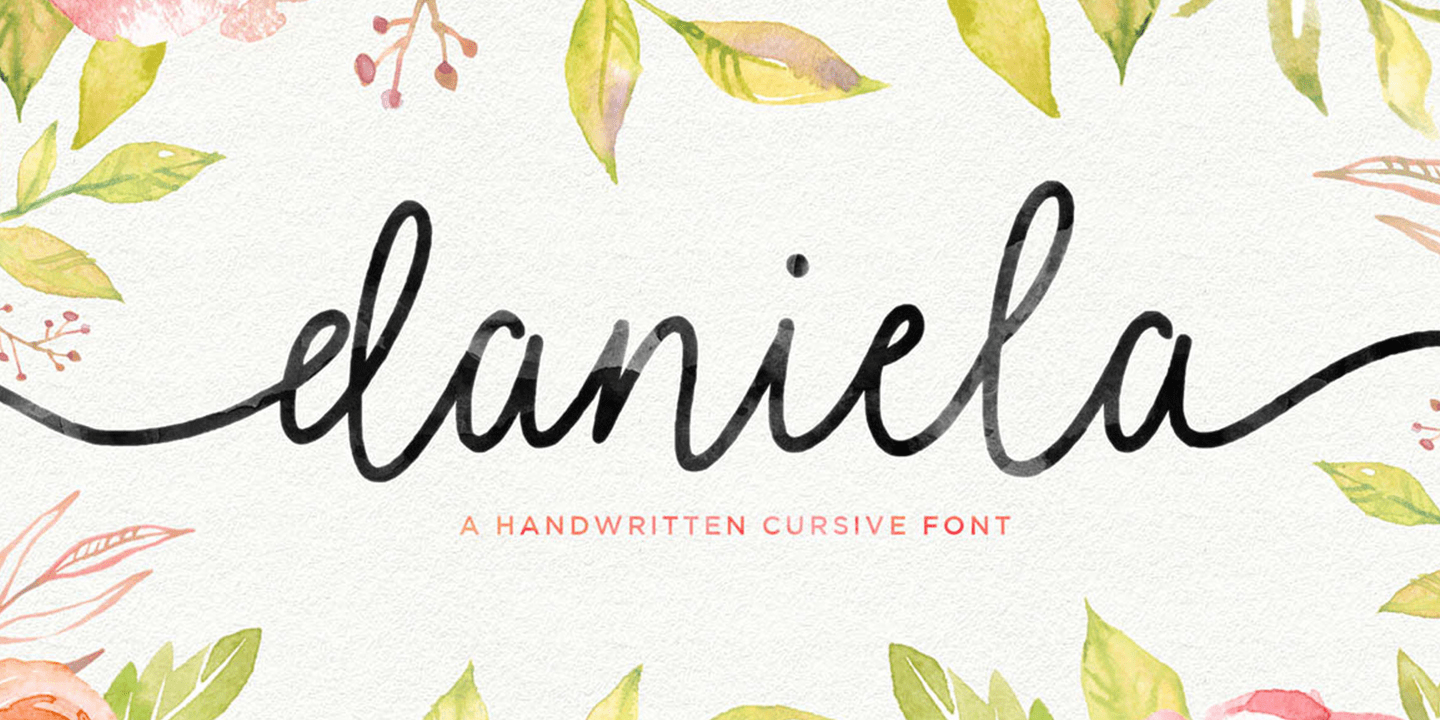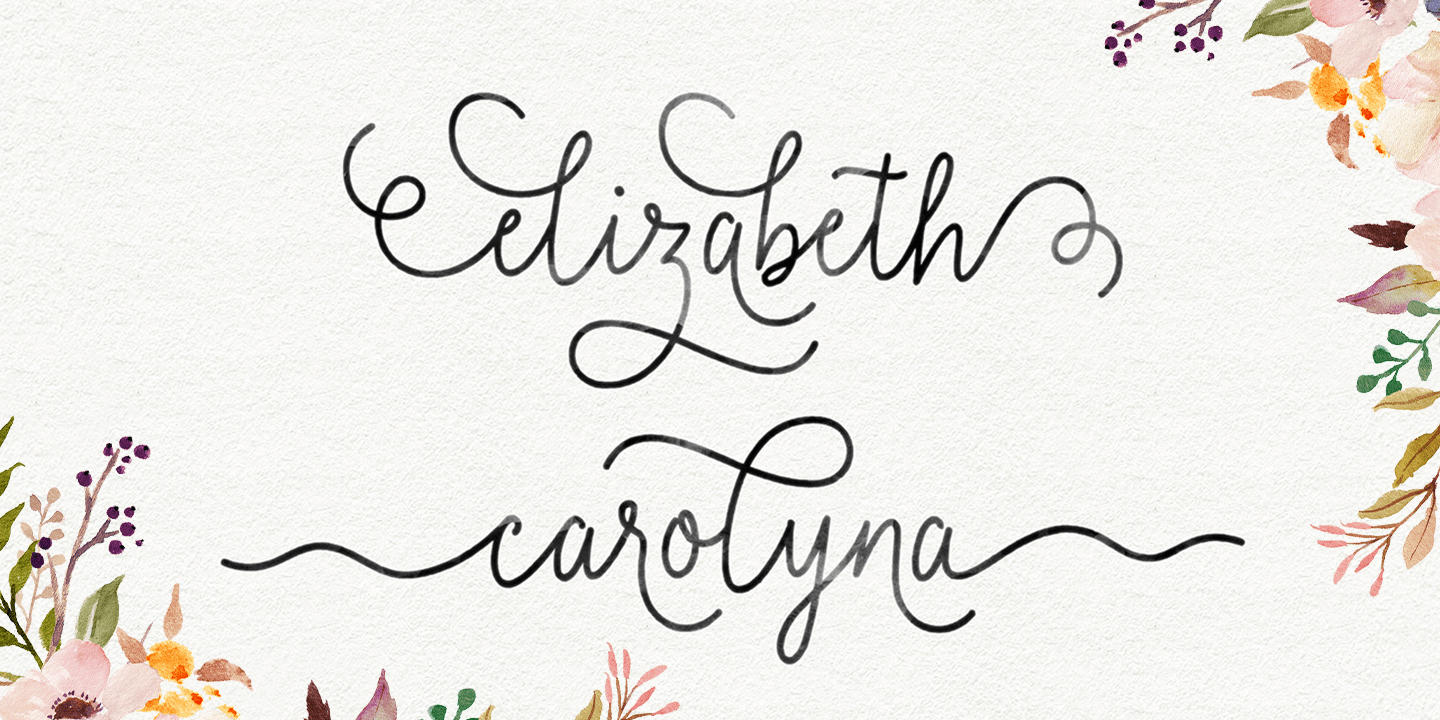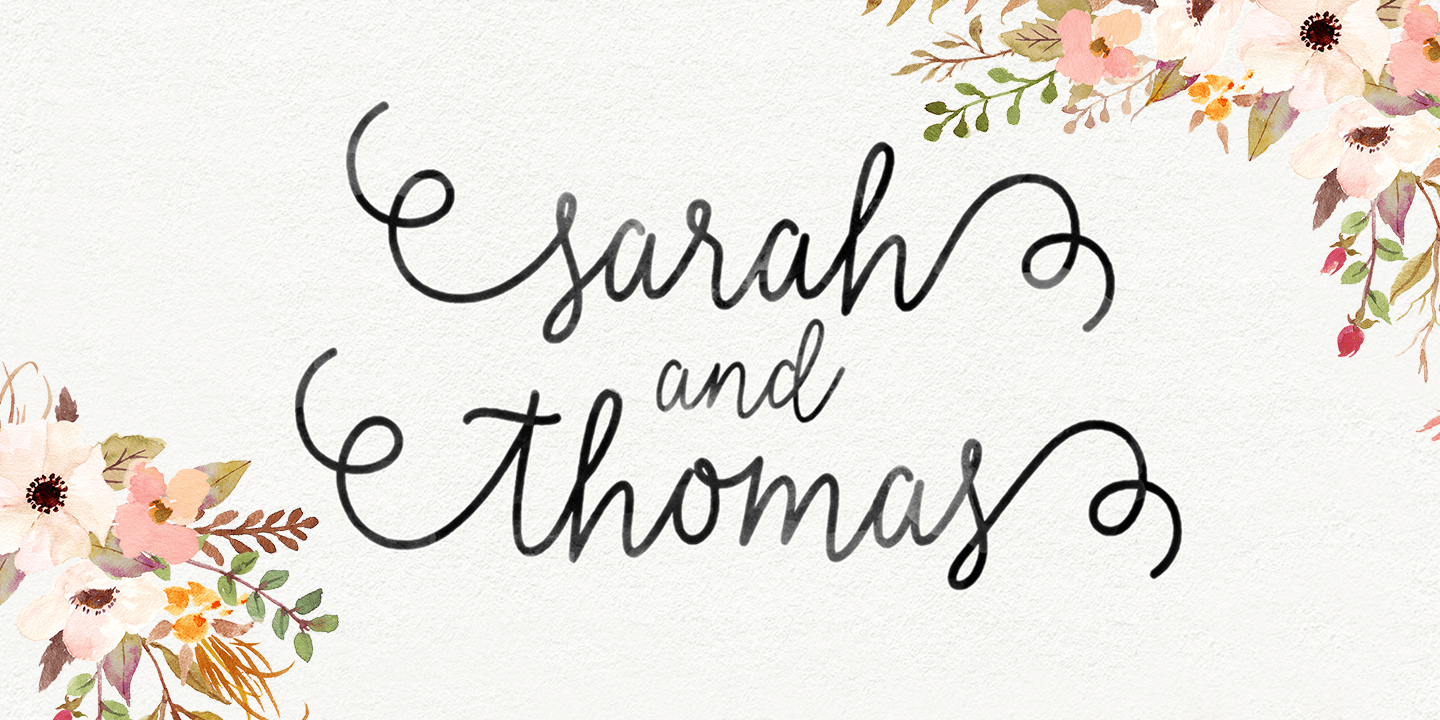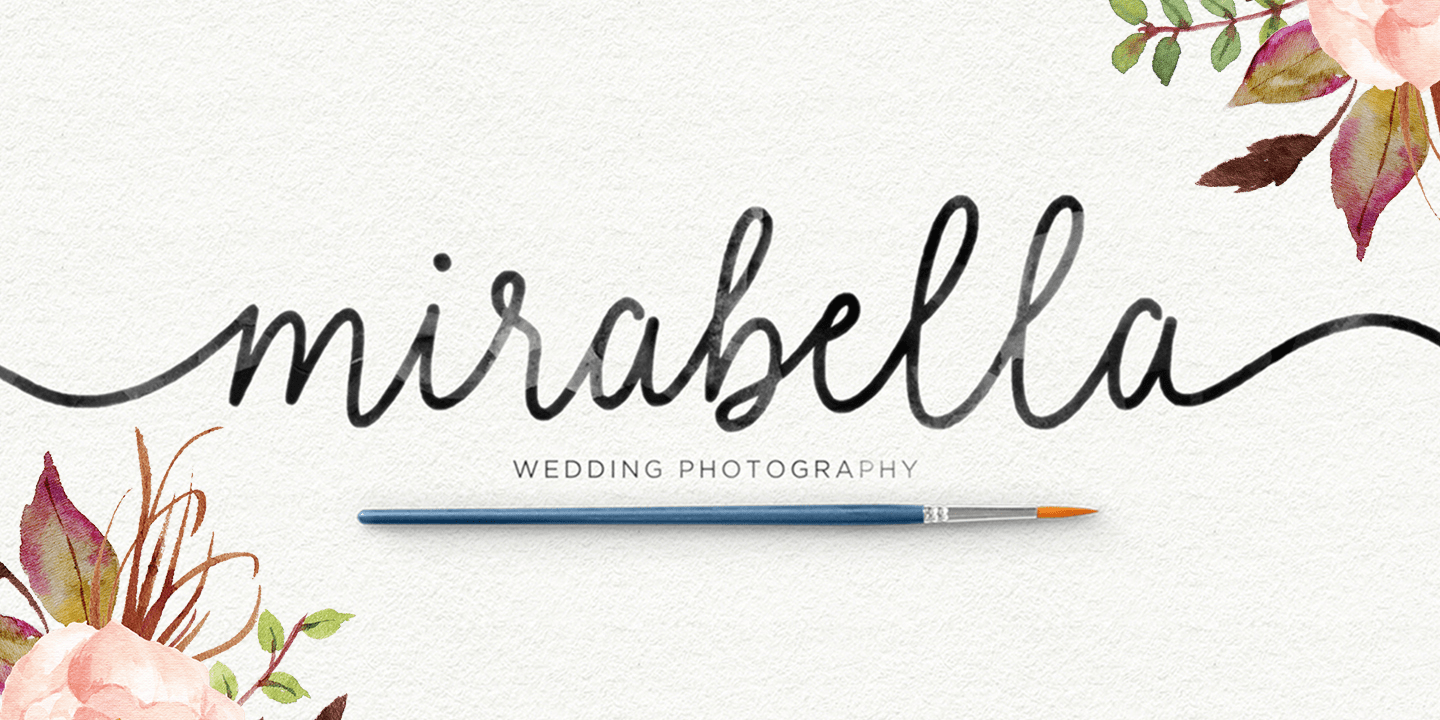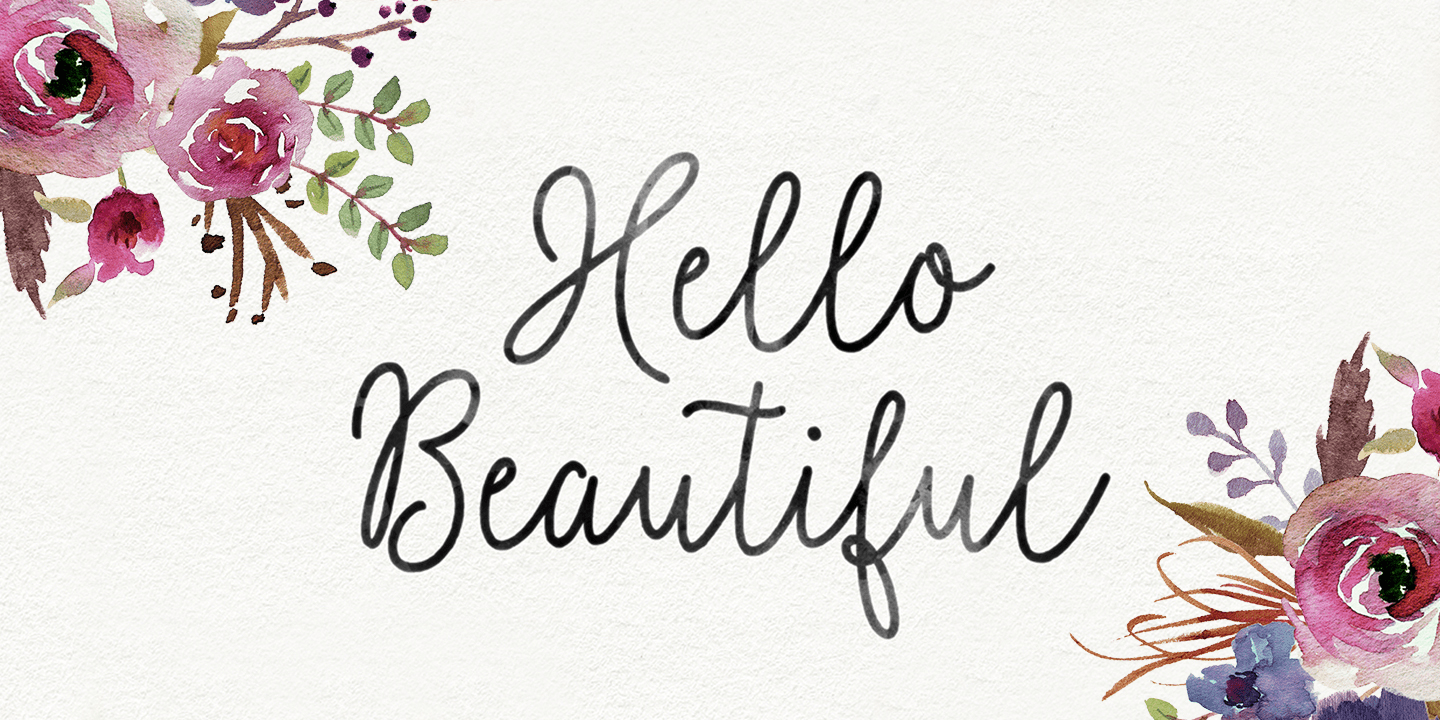
Daniela Script
Daniela Script is a handwritten cursive font. It is a modern and elegant script and can be used for various purposes such as logos, wedding design projects, invitations, heading, t-shirt, letterhead, signatures, greeting card, handwriting and more.
Daniela features 370+ glyphs and 184 alternate characters. including initial and terminal letters, alternates, ligatures and multiple language support.